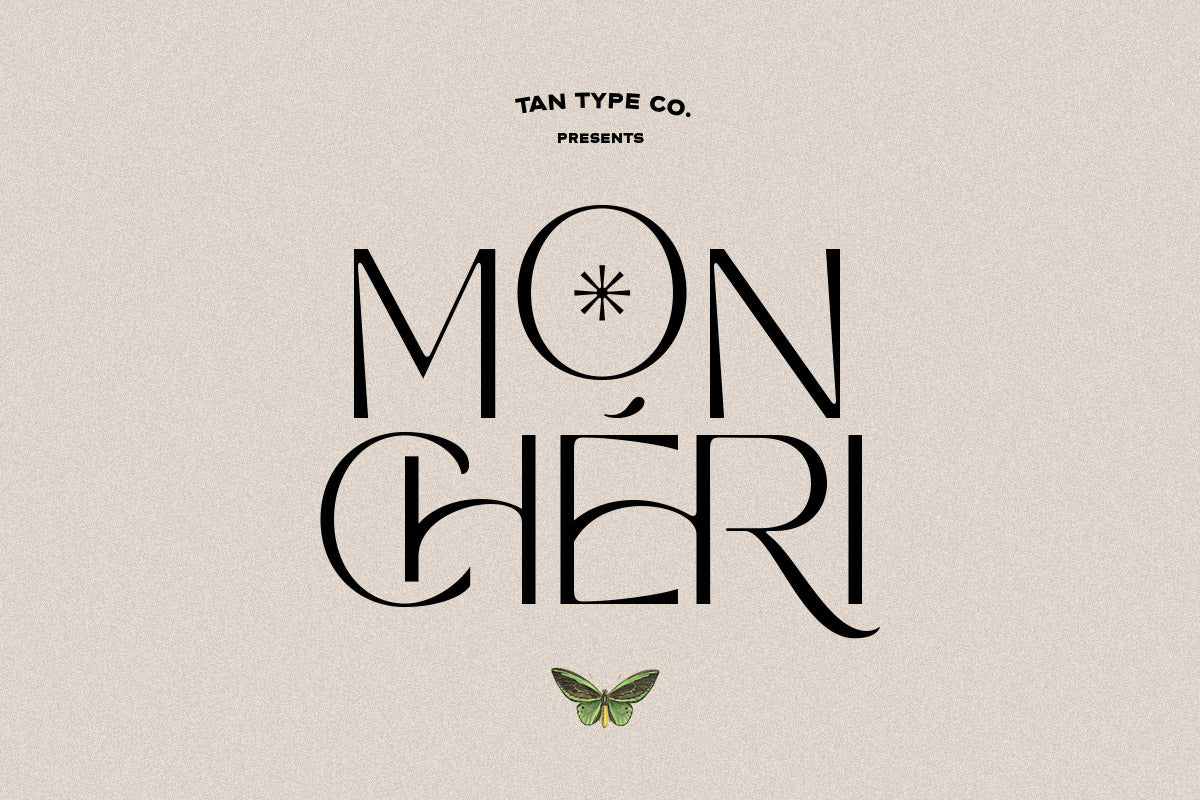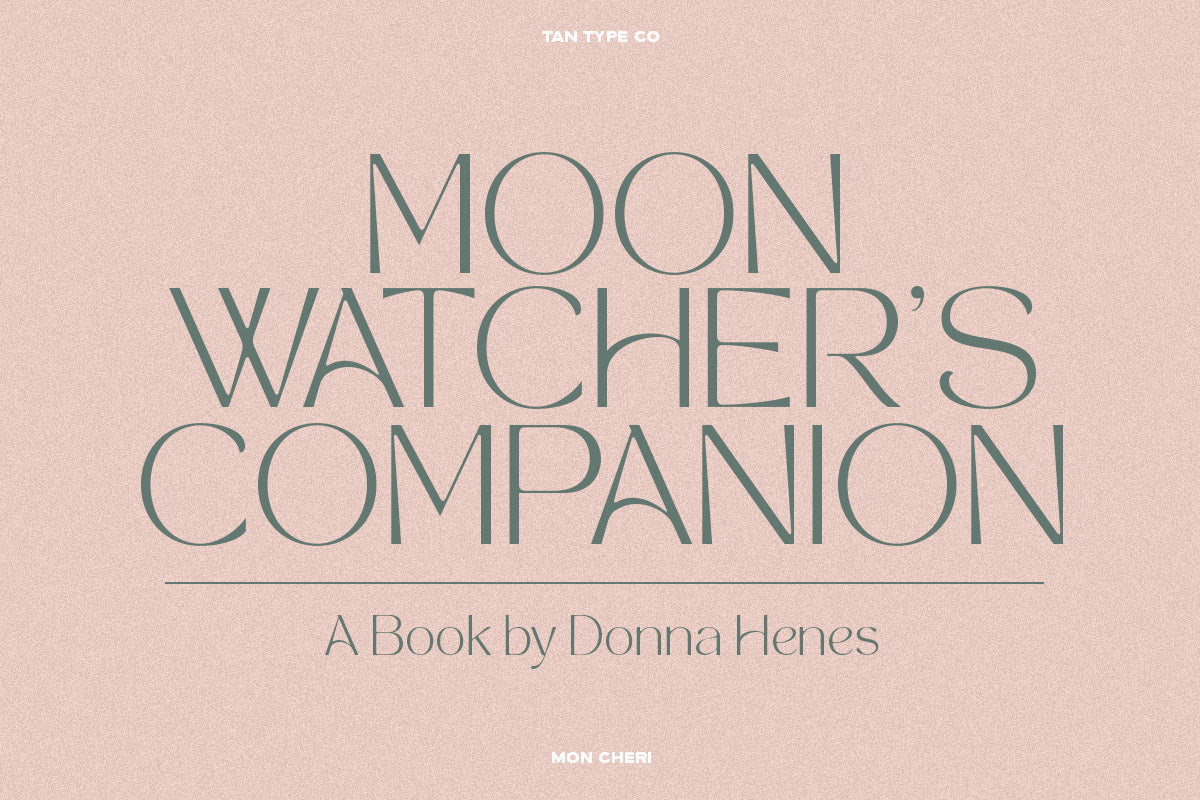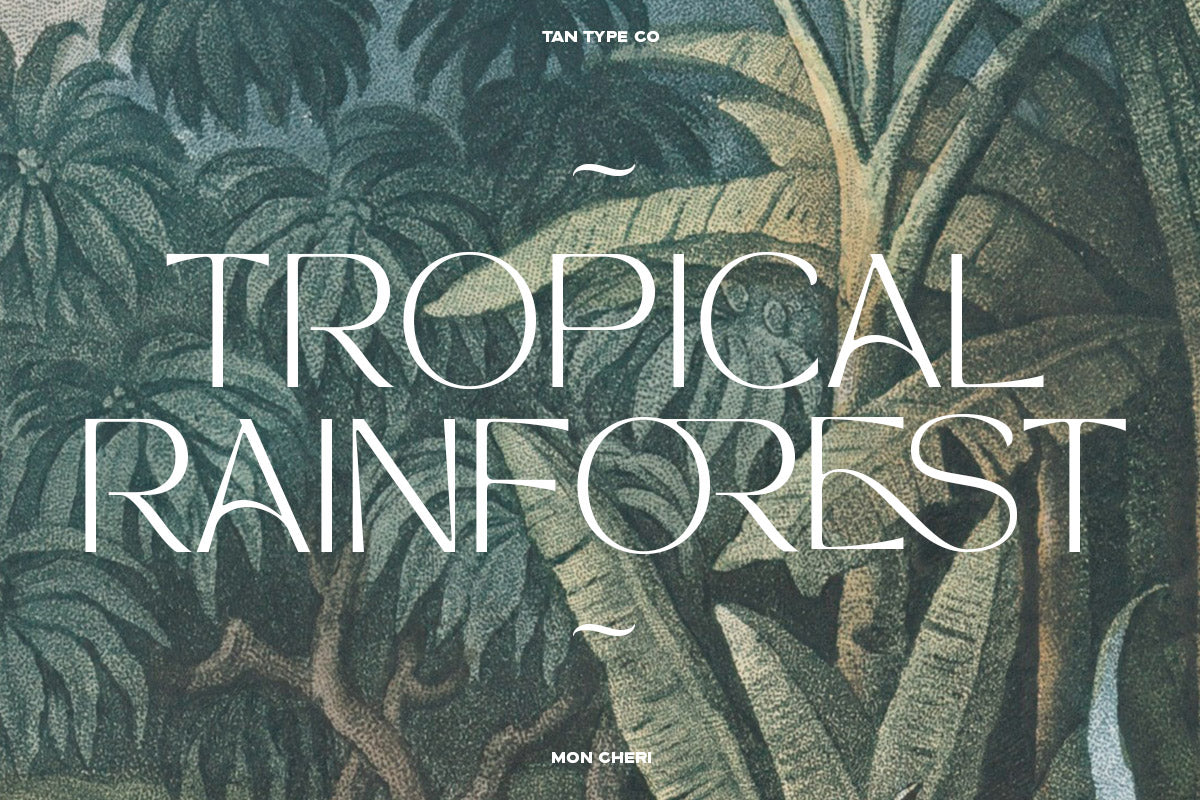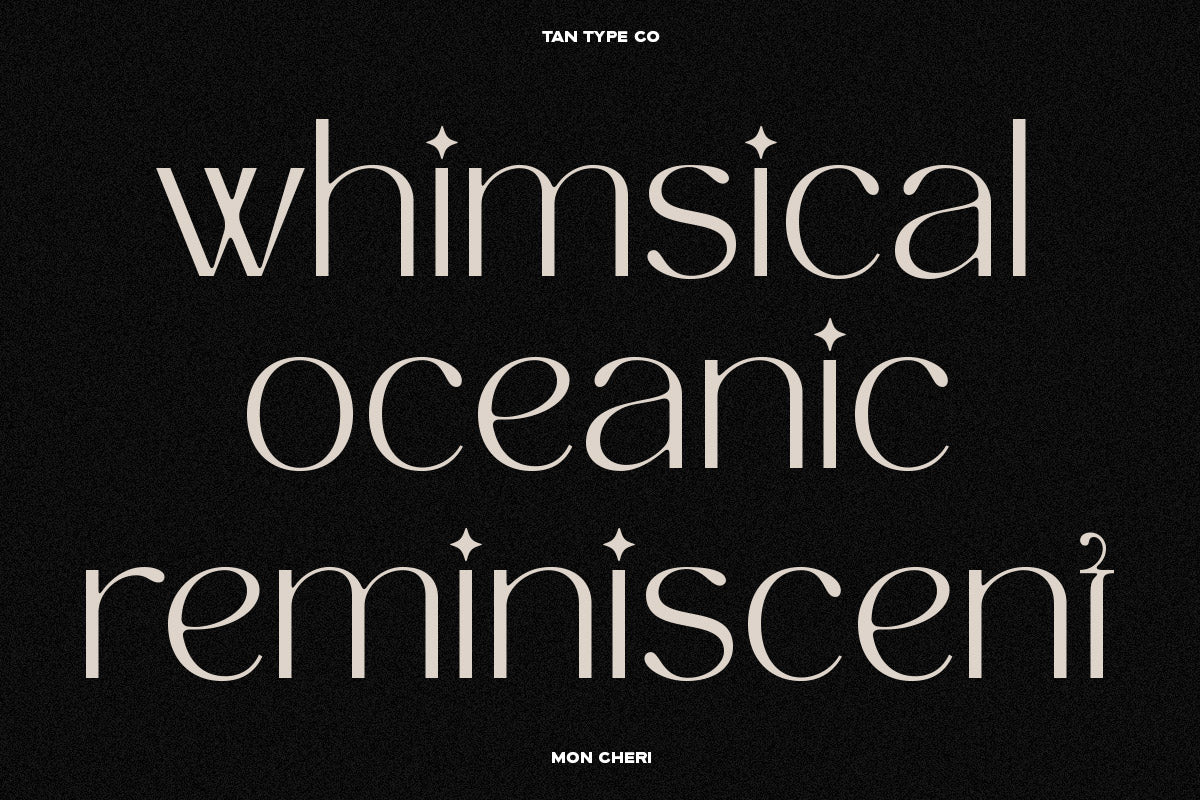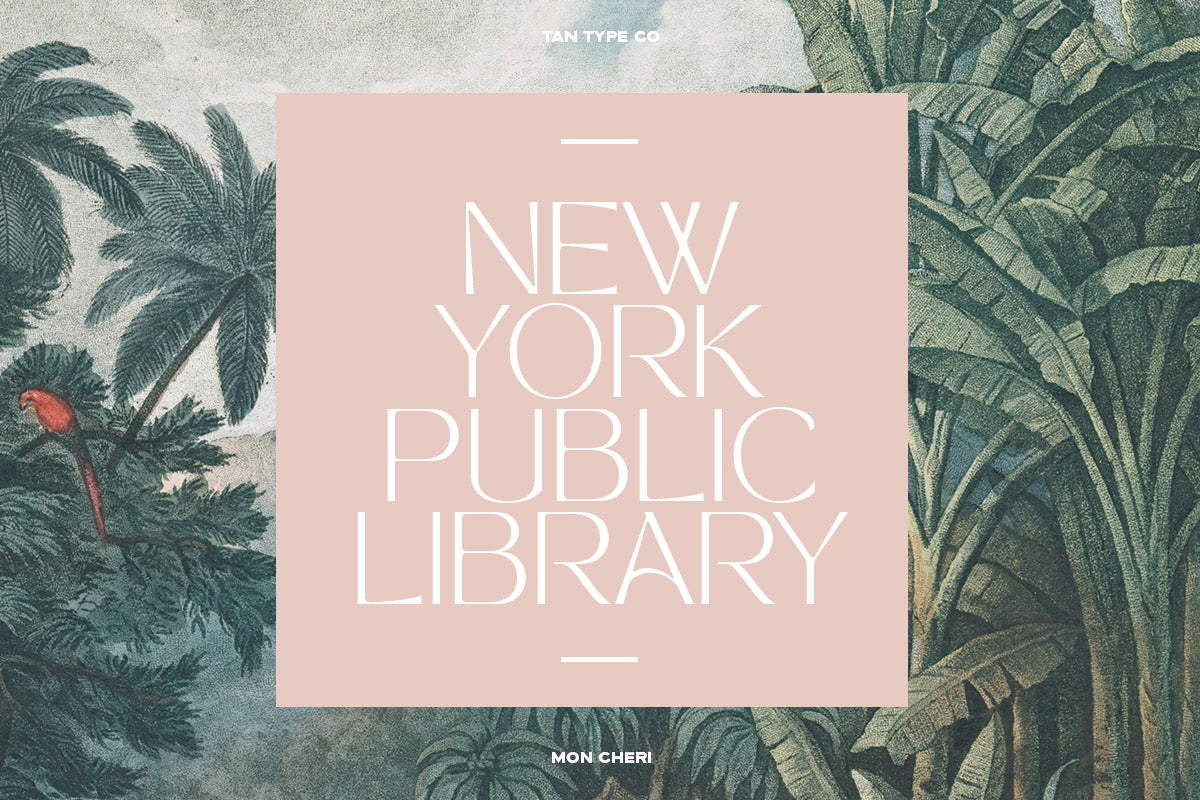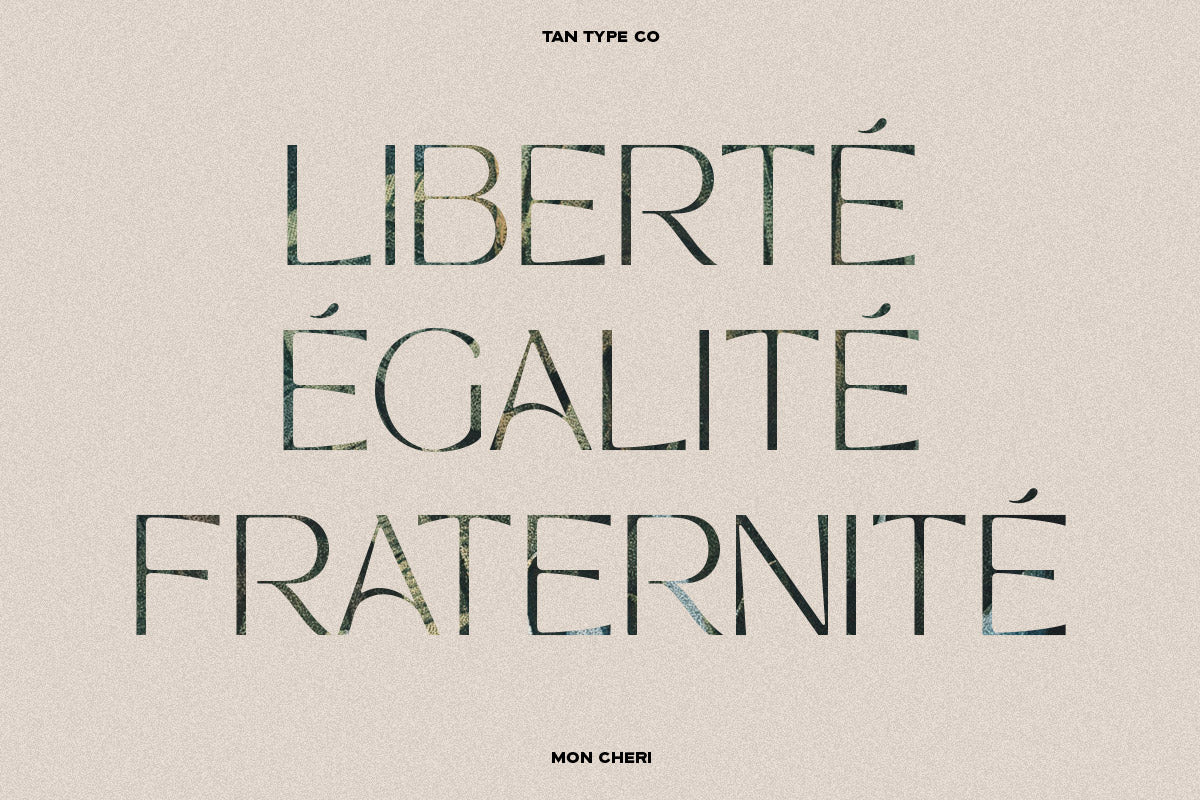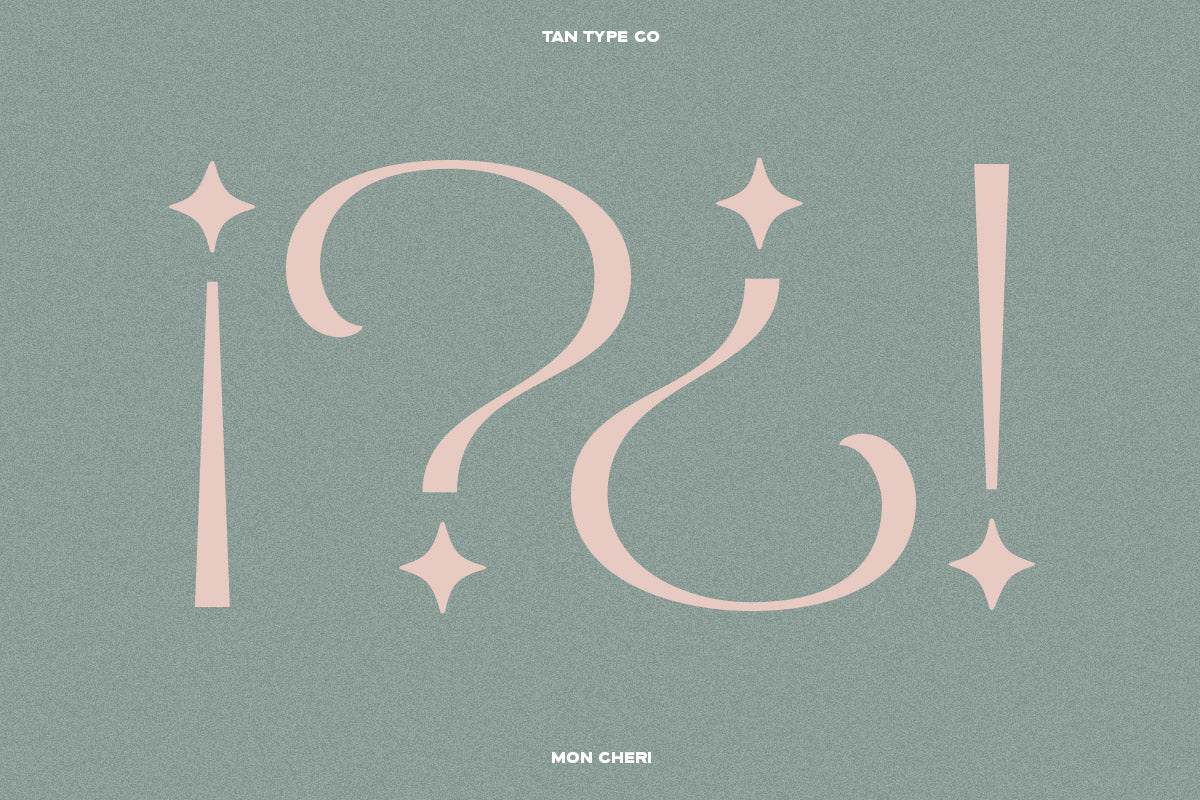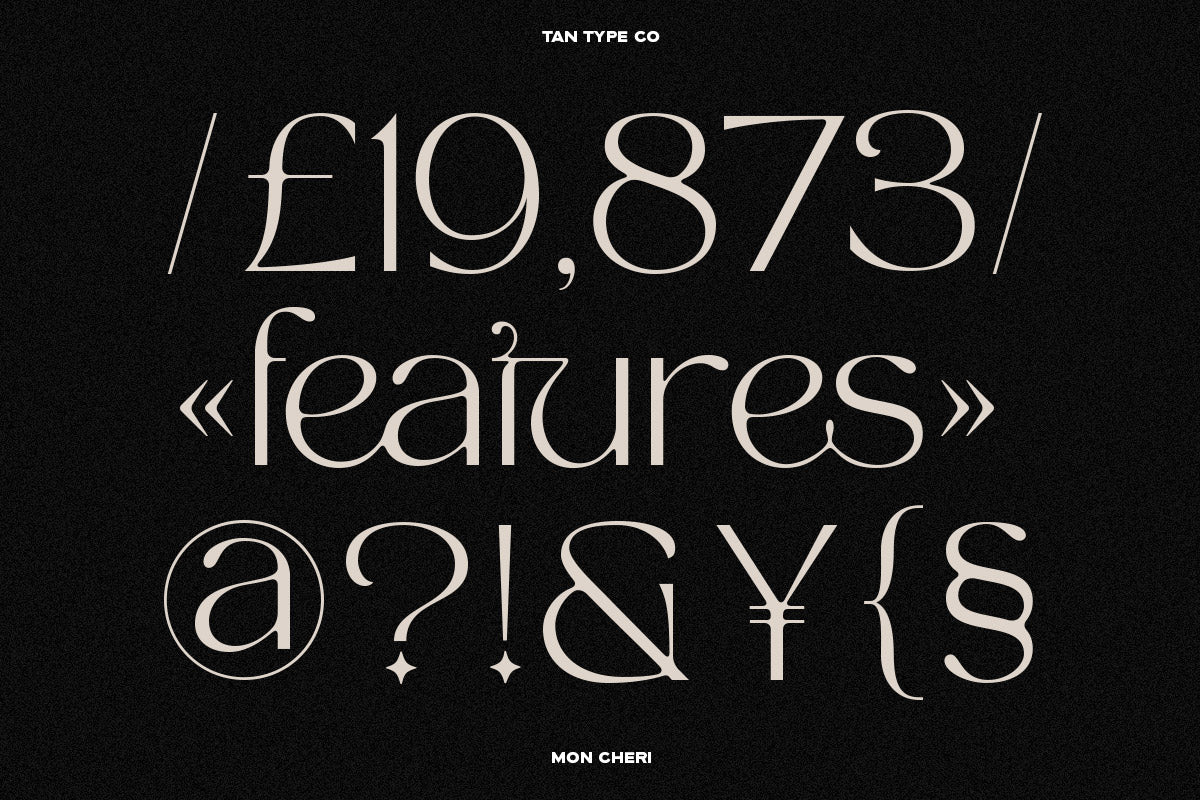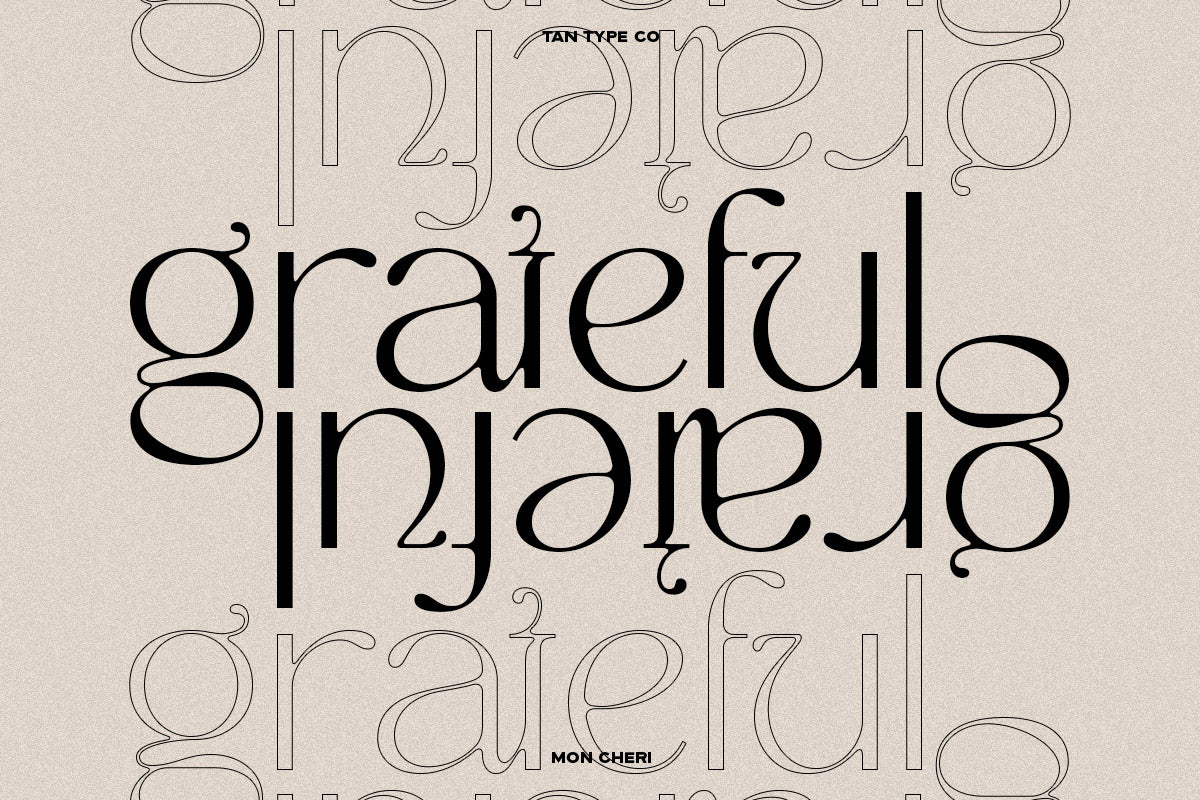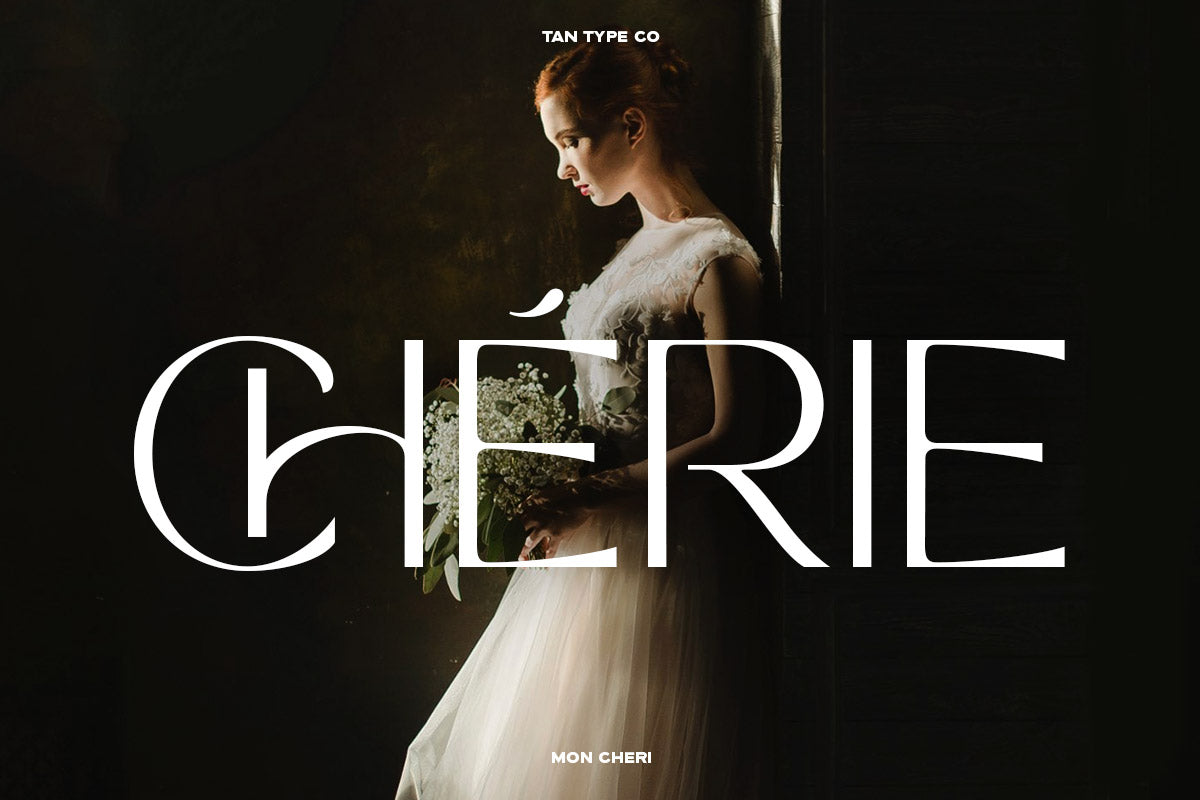
MON CHERI is a chic and stylish display serif typeface with high contrast, refined curves, and expressive letterforms. Its elegant geometry and sophisticated detailing create a romantic, fashion-forward aesthetic that’s both modern and timeless.